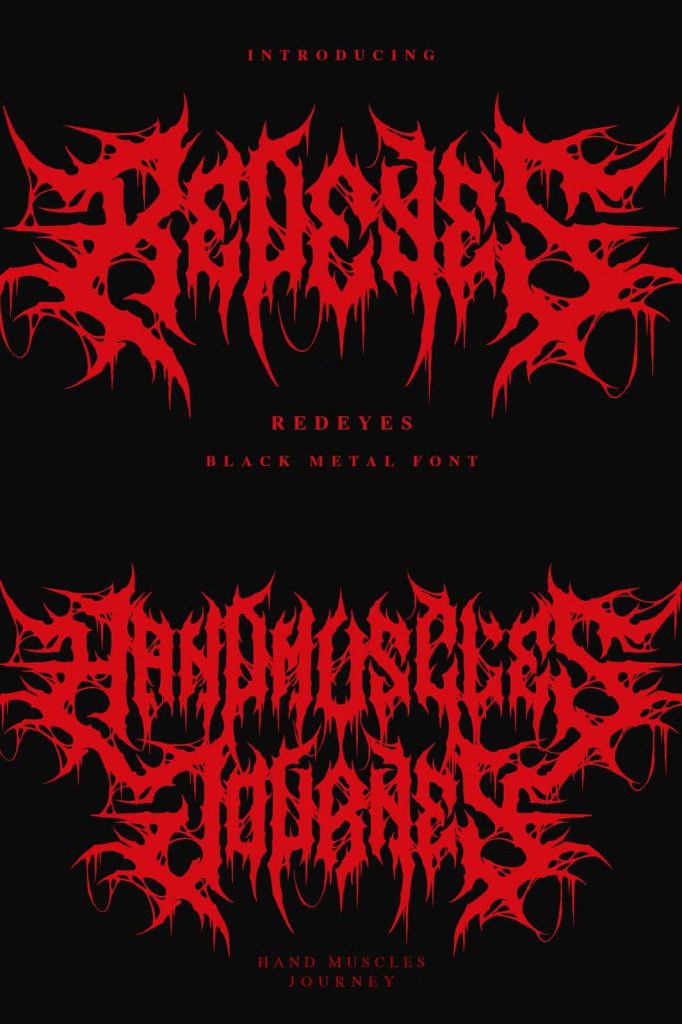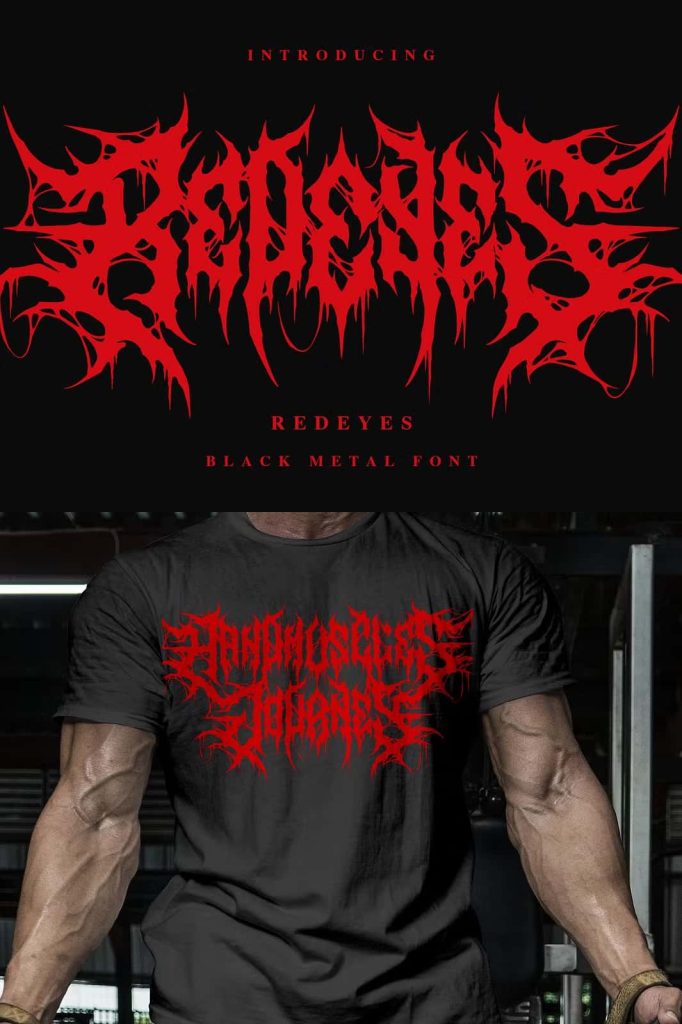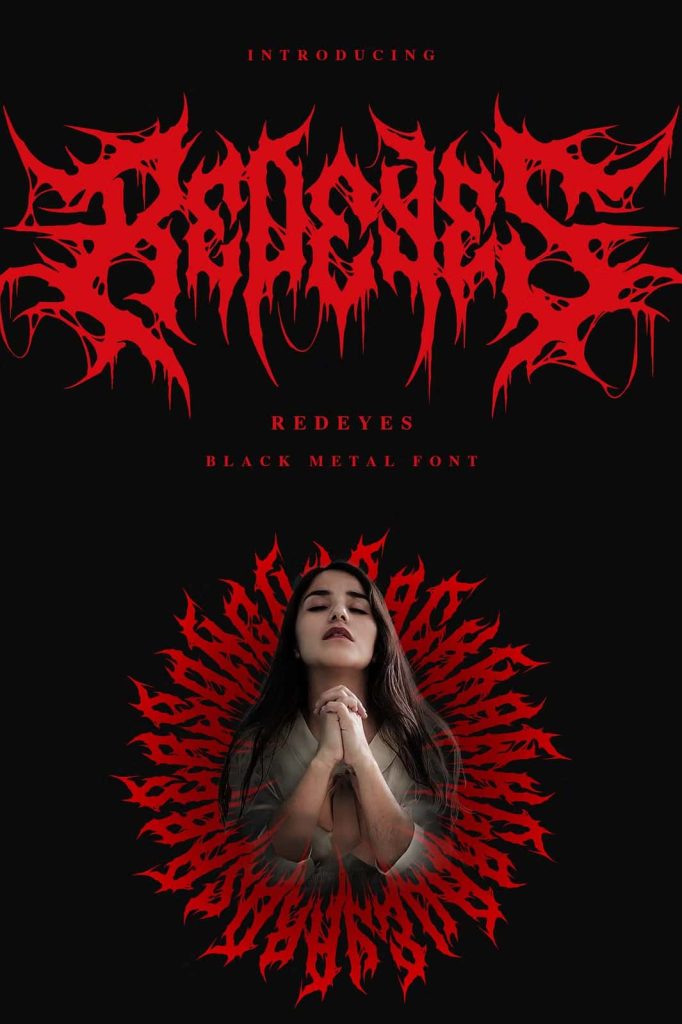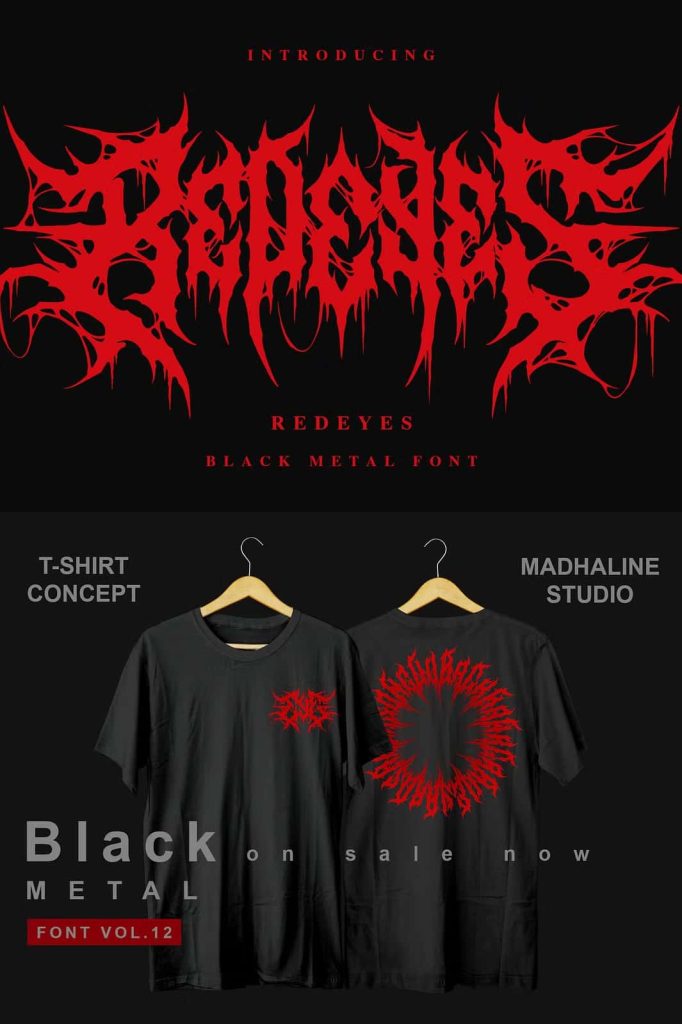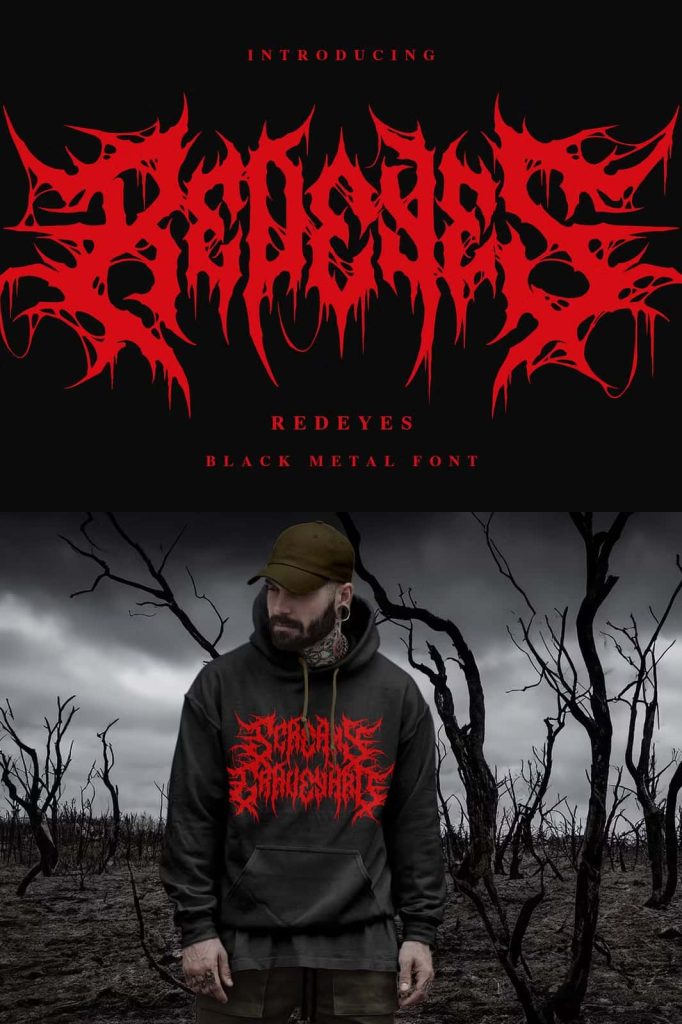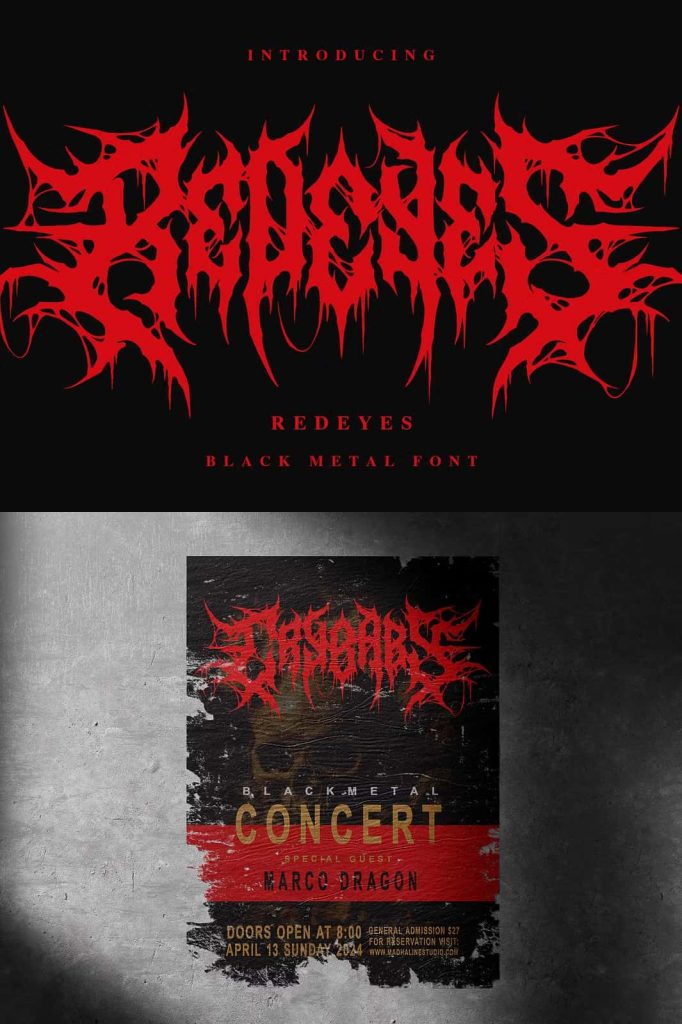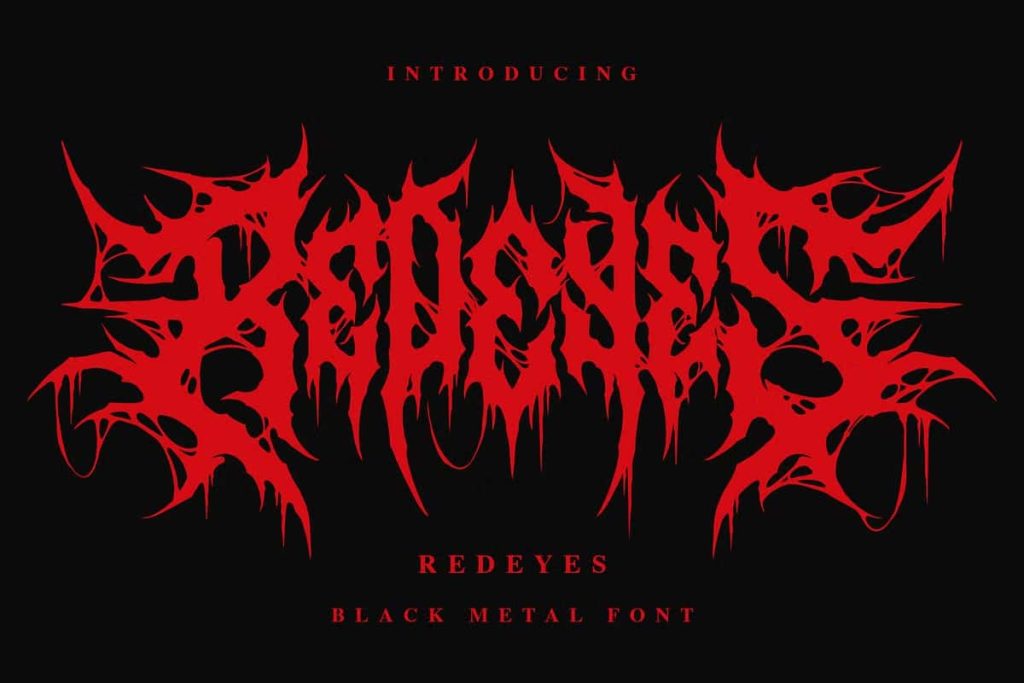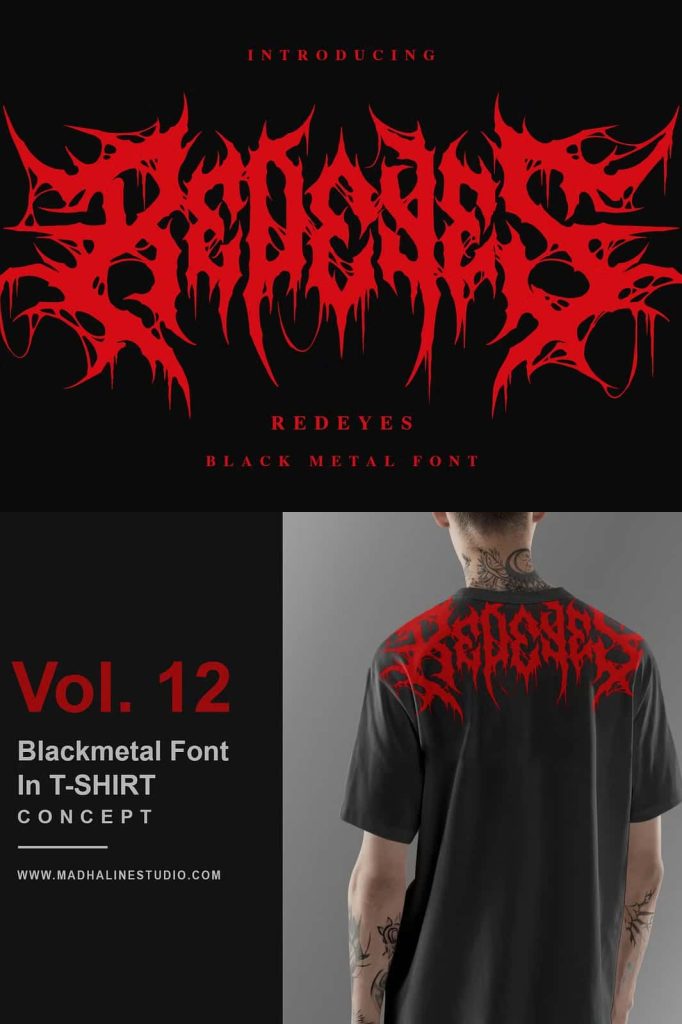
Redeyes Blackmetal Font: A Bold Typeface with Extreme Metal Aesthetic
Redeyes Blackmetal Font introduces a brutal and highly stylized typography design built to capture the raw attitude of extreme music culture. This font delivers a realistic blackmetal logo appearance, making it stand out among standard decorative or gothic typefaces. Inspired by the chaotic yet structured style of blackmetal band emblems, Redeyes brings a perfectly balanced combination of terror, creativity, and visual power to your design projects.
The design character of Redeyes emphasizes sharpness, dark elegance, and dramatic detail. Each stroke reflects the aggressive spirit of underground music culture, making it ideal for creators who want a design element that commands attention. Redeyes carries visual depth and artistic intensity that transforms ordinary text into a memorable statement.
A Distinctive Style Inspired by True Blackmetal Identity
Redeyes Blackmetal Font stands out because of its realistic approach to extreme metal design aesthetics. The typeface showcases symmetrical letter forms, created using a left-right mirrored structure. This mirrored effect generates a bold and powerful silhouette, similar to traditional blackmetal band logos carved with precision and chaotic balance.
Another defining feature of the font is its sticky liquid connection between letters. This dripping visual element reinforces the horrifying atmosphere of the style, making the typeface feel primal, sinister, and intimidating. The result is a font that carries a disturbing yet fascinating energy, suitable for artistic projects that demand edge and individuality.
Perfect Applications for Redeyes Blackmetal Font
Redeyes is crafted for more than simple text presentation. It is specifically made for bold projects where the font plays a significant role in identity and branding. Designers and content creators can apply this font to various professional and creative media, including:
- Extreme band logos and metal branding
- Merchandise concepts and apparel prints
- Poster layouts and dark-themed promotional graphics
- Album covers, track titles, and music visual campaigns
- Gaming UI, horror game titles, and character branding
- Film and documentary titles related to mystery, horror, or dark fantasy
The bold personality of the typeface allows it to dominate visual compositions, ensuring the message remains powerful and unforgettable. Whether you design for entertainment branding, underground culture visuals, or digital media production, Redeyes provides the right visual tone.
Design Impact and Creative Expression
Using Redeyes Blackmetal Font gives your work an instant dramatic upgrade. Instead of looking ordinary or typical, the design becomes expressive and thematic. The font communicates rebellion, darkness, and artistic intensity without relying on additional effects or modifications. This makes Redeyes a practical yet highly impactful choice for digital designers, visual artists, and branding developers.
By applying Redeyes, you bring forward a design identity that feels authentic to metal culture. It reflects aggression, fearlessness, and style, making it an excellent tool for artists who want to break creative boundaries.
Elevate Your Visual Identity with Redeyes
For creators searching for a typeface that contains unmistakable energy and visual power, Redeyes Blackmetal Font offers the ideal balance of brutality and design detail. Its symmetrical form, dripping effect, and dark visual tone allow your creations to stand out in competitive creative industries.